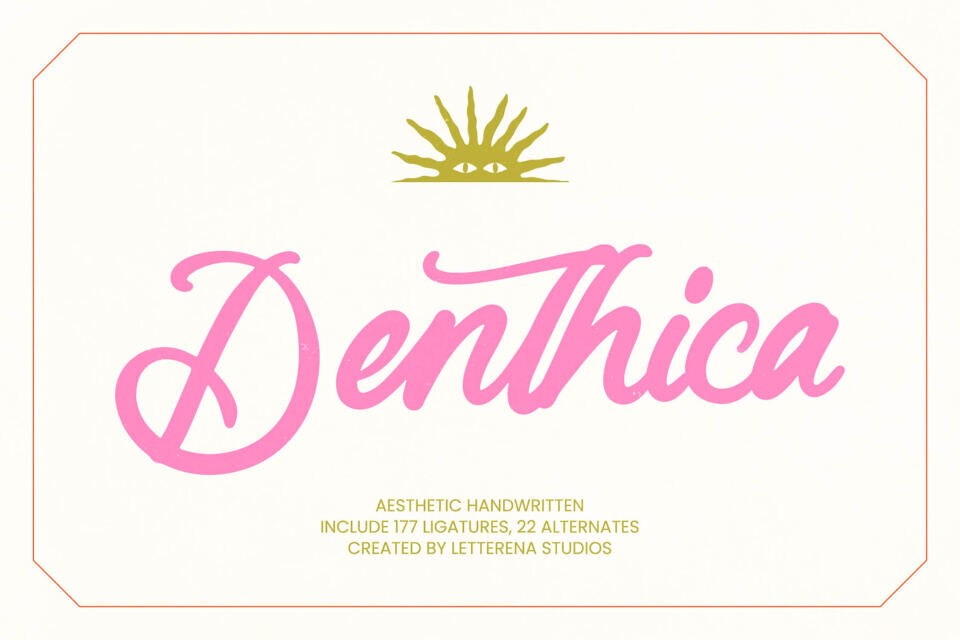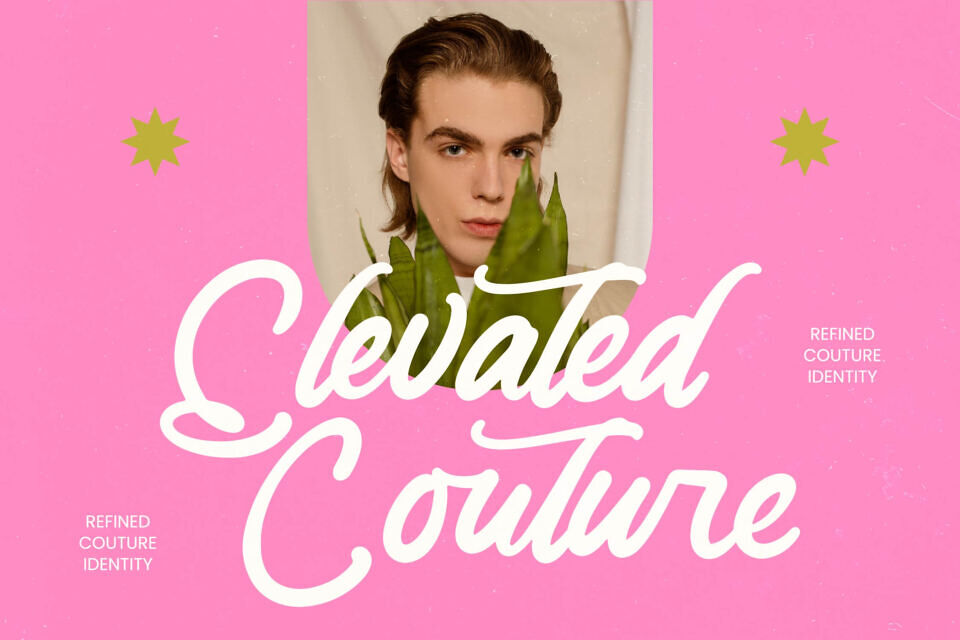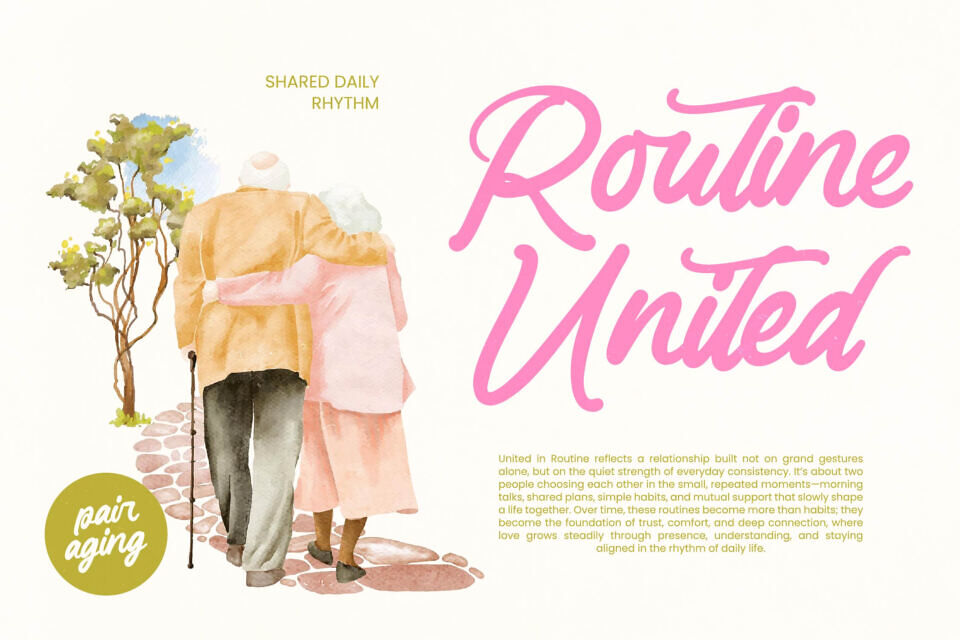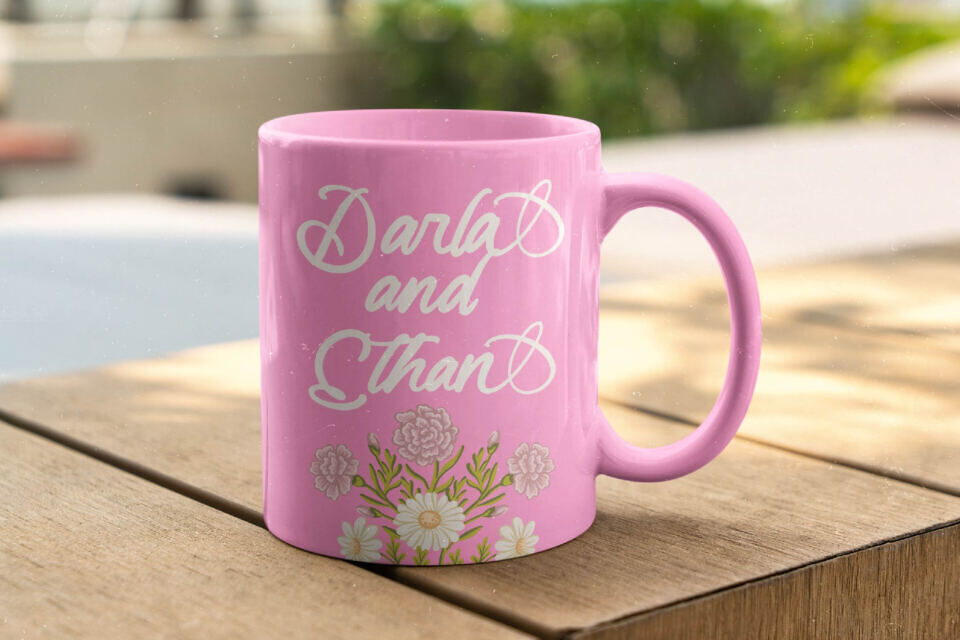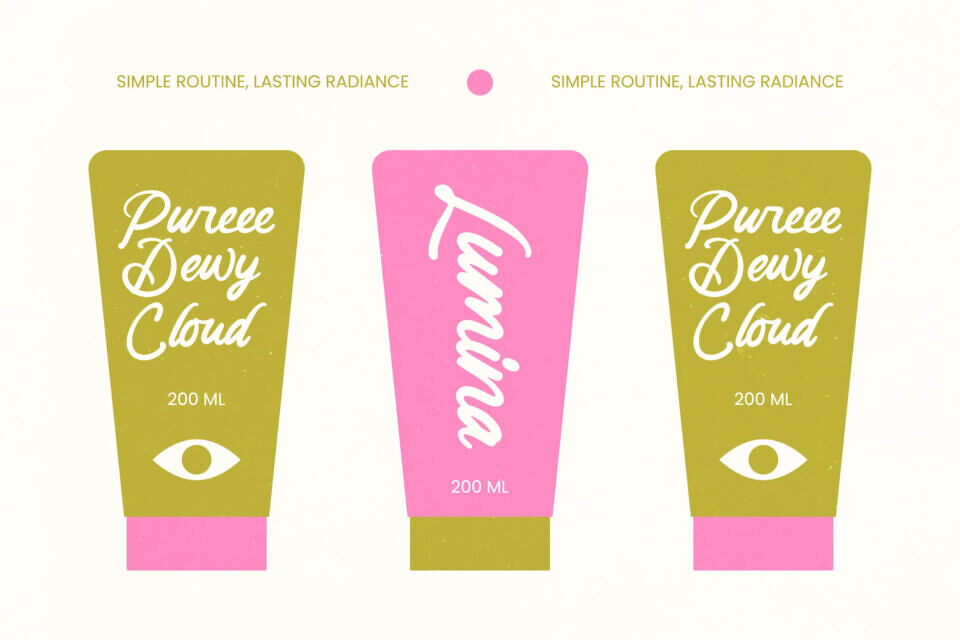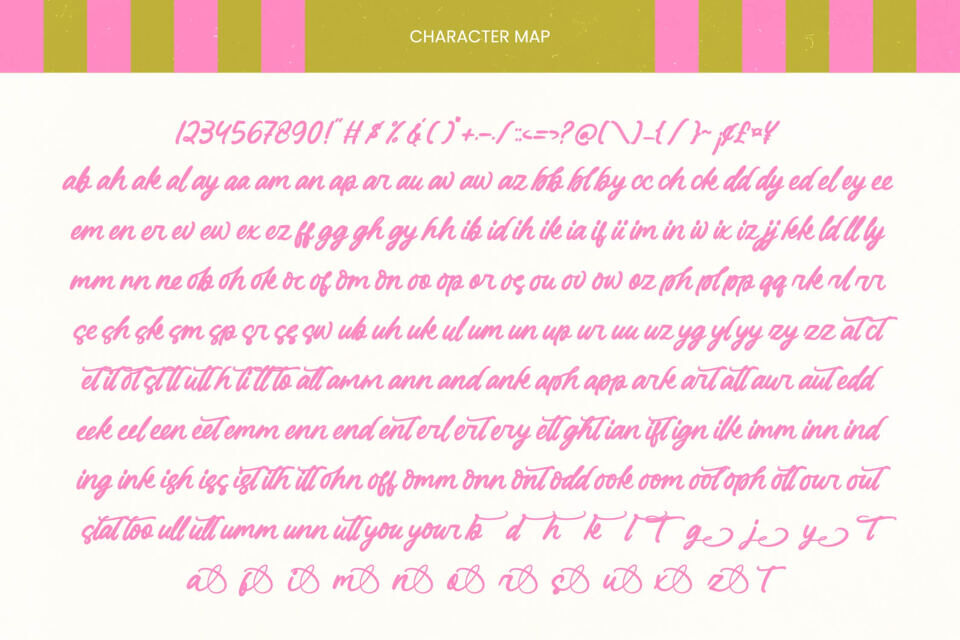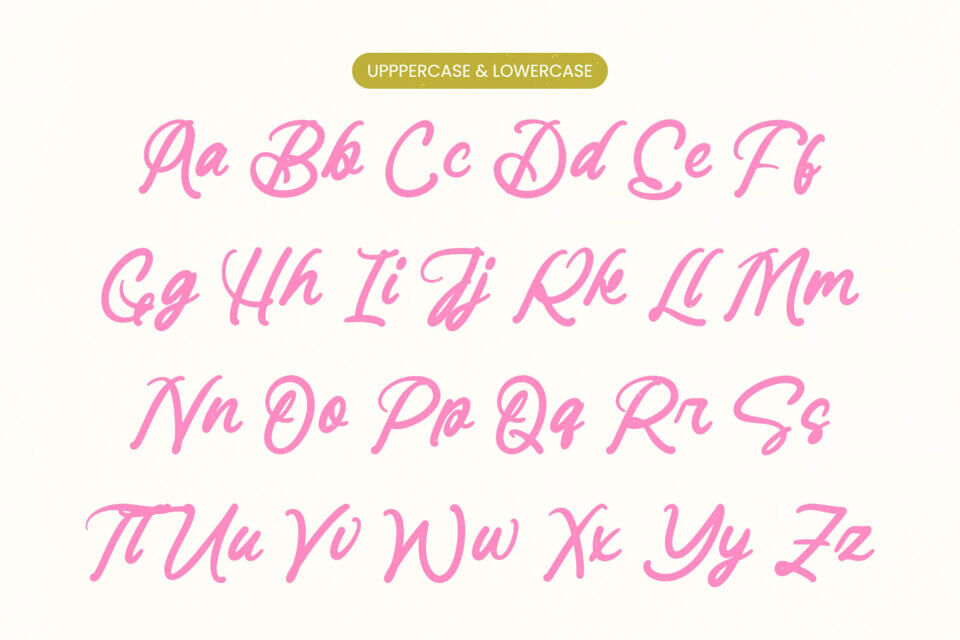
Denthica Font
Elevate your design with Denthica, a premium script typeface that blends modern calligraphy with a hand-drawn texture. Its elegant strokes and refined letterforms evoke luxury and sophistication.
With extensive multilingual support, custom OpenType features, and unique ligatures, Denthica is perfect for luxury branding, editorial design, and high-end packaging, bringing a touch of human connection to your visual statements. Its versatility and harmonious flow make it ideal for creating sophisticated layouts and maximizing brand reach.